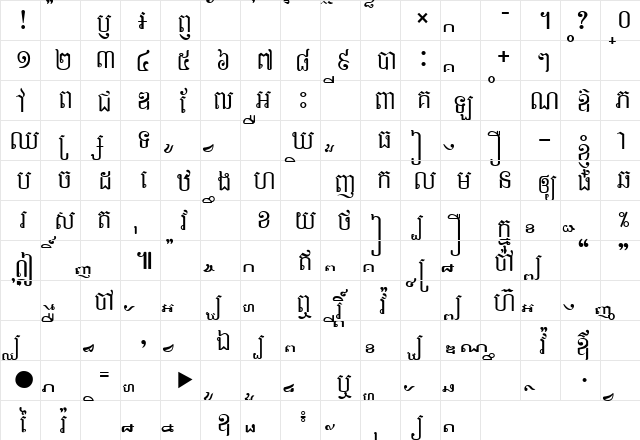
Ekreach New Regular
Design Context for Ekreach New Typeface
Ekreach New offers clean, dependable letterforms without strong stylistic allegiance, making it a practical choice for designers who need flexibility.